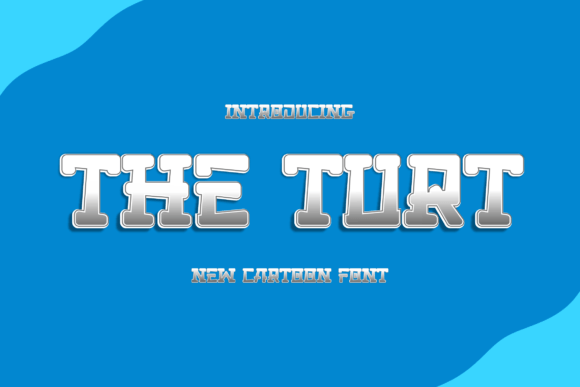
Welcome to the world of The Turt Font, a display font family that's ready to transform your designs into captivating works of art. Created by the talented kalingga.albert, this font family boasts a fun and cool personality, with a touch of quirkiness that adds a unique charm to any project.
With The Turt Font, you'll discover a font that's not just visually stunning but also incredibly versatile, adapting effortlessly to a multitude of contexts. Its quirky nature shines through whether you're crafting logos, posters, social media graphics, or even branding materials.
One of the key strengths of The Turt Font lies in its ability to evoke emotions and make a lasting impression. Its playful and distinct character brings a touch of joy and excitement to any design, leaving a mark on your audience that they won't soon forget.
So, if you're searching for a font that combines creativity, versatility, and emotional impact, look no further than The Turt Font. It's the perfect choice for designers who want to create designs that stand out, connect with their audience, and leave an unforgettable impression.